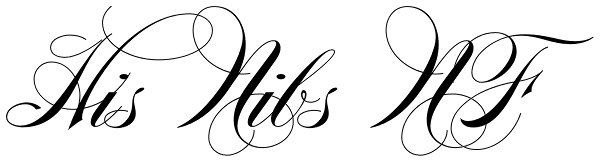
His Nibs NF
This swoopy, loopy script was inspired by an “American roundhand” presented by John M. Bergling in his Art Alphabets and Lettering, first published in 1914. Bergling’s unique talent crafted uppercase letters which manage, at the same time, to be...